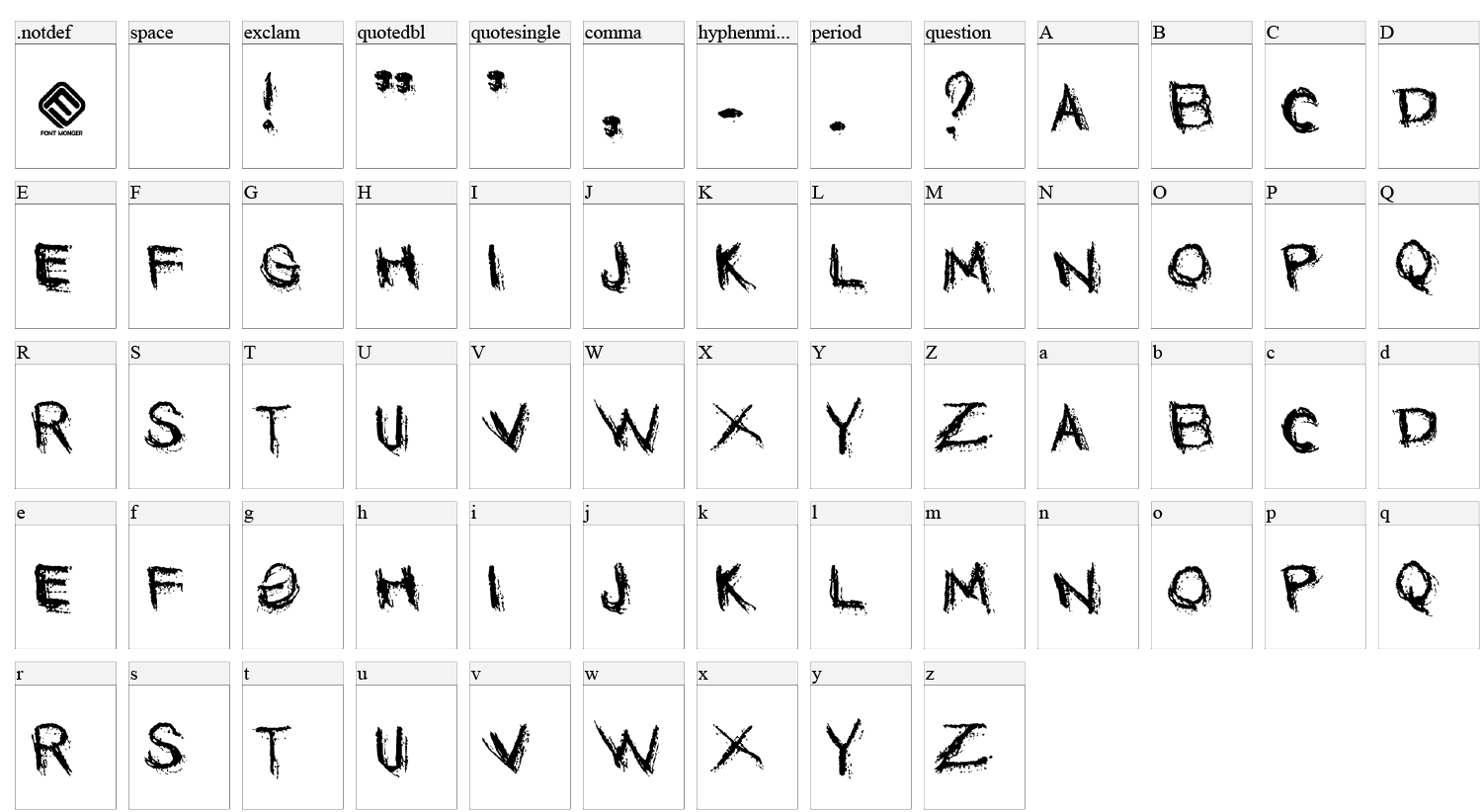
Garroting is an eroded and scary font is designed to convey a sense of horror, darkness, and decay. The rough and uneven edges of the font give it a sense of wear and tear, like it has been aged by time or the elements. The letters may be distorted, cracked, or otherwise damaged, giving the font a sense of unease and instability. The spacing and alignment of the letters may also be irregular, adding to the font's sense of chaos and unpredictability.
This type of font is often used in horror-themed designs, such as movie posters, book covers, or haunted house advertisements. It can also be used in branding and marketing for products or services that want to convey a sense of danger or edginess. Overall, The font garroting which is an eroded and scary font is a powerful tool for designers looking to create an atmosphere of fear, suspense, or foreboding
Lowercase: Same as uppercase, 'g' is flipped horizontal
Numbers: No
Symbols & Punctuation: Very limited, view image below to see available characters
Accents: No